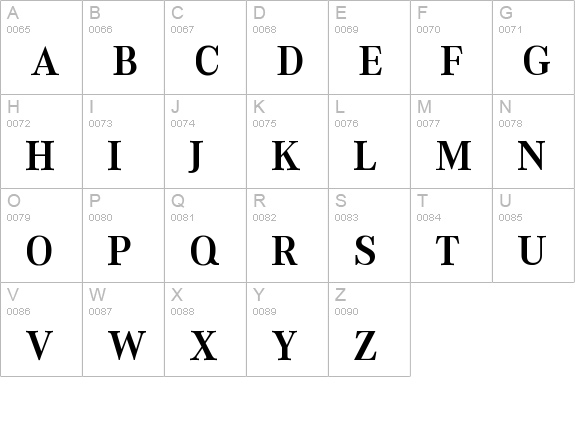
Corporate A Bold is a strong, high-contrast variant in the Corporate typeface family \xE2\x80\x94 well suited to headlines, attention-grabbing titles, and strong calls-to-action.
Corporate A Bold font is a sleek and modern typeface that exudes professionalism and sophistication. With its bold and clean lines, this font makes a powerful statement in any design project. Whether you're creating a corporate presentation or designing a sleek website, Corporate A Bold font is the perfect choice to grab your audience's attention. The best part? Corporate A Bold font is available for free download at FontsMarket.com. This means you can easily add this impressive font to your collection without breaking the bank. Don't miss out on the opportunity to elevate your designs with the timeless elegance of Corporate A Bold font. Download it today and see the difference it can make in your projects!